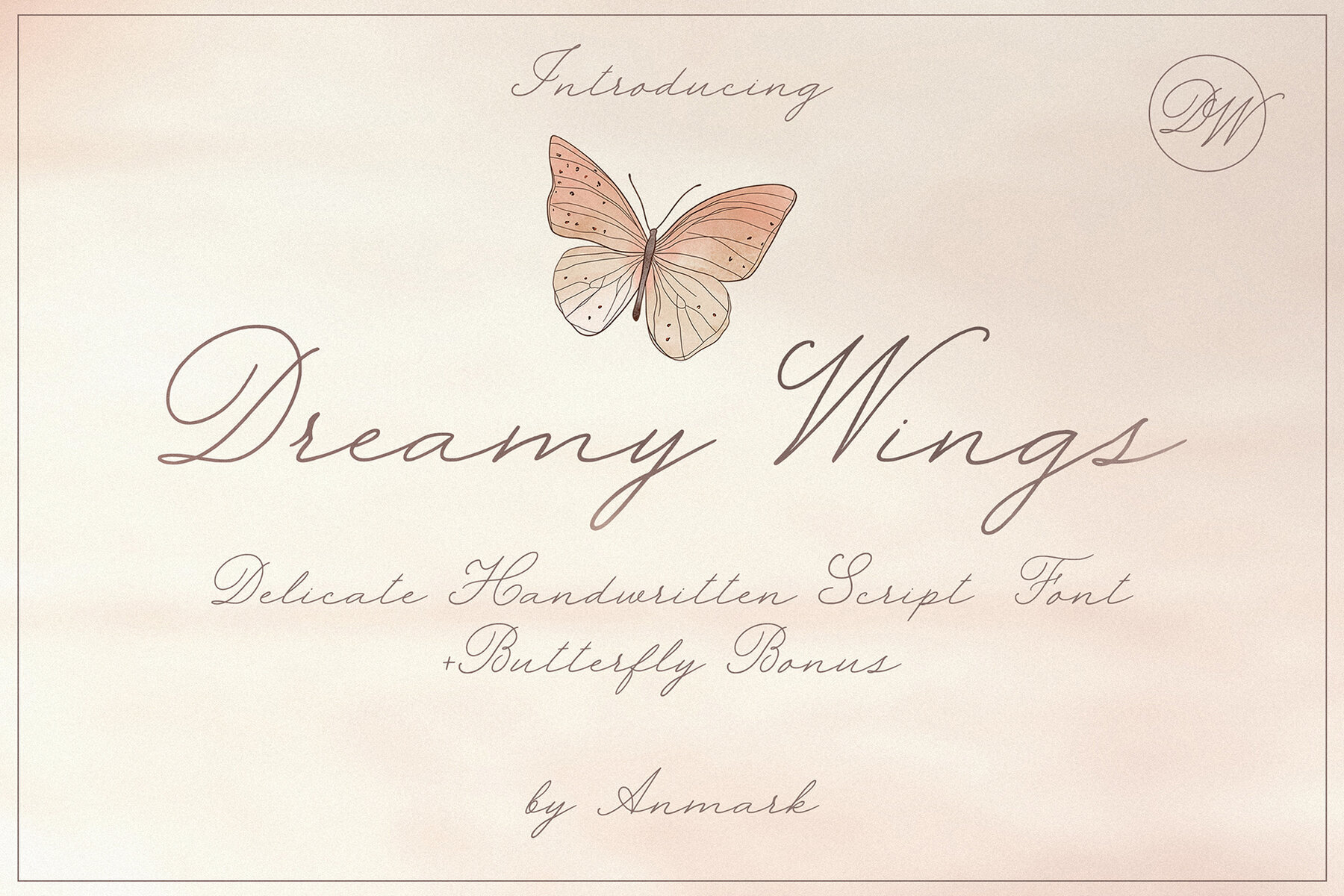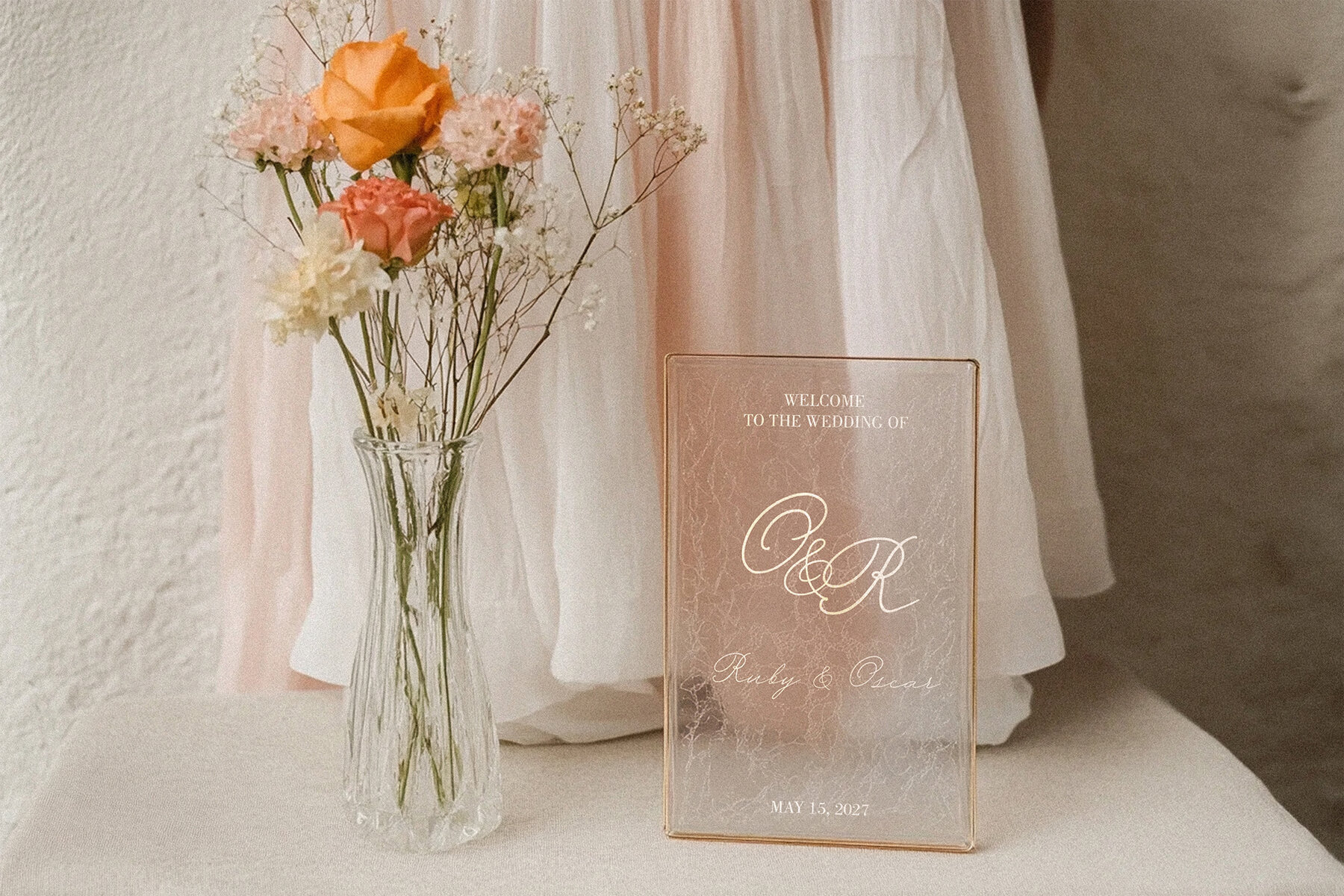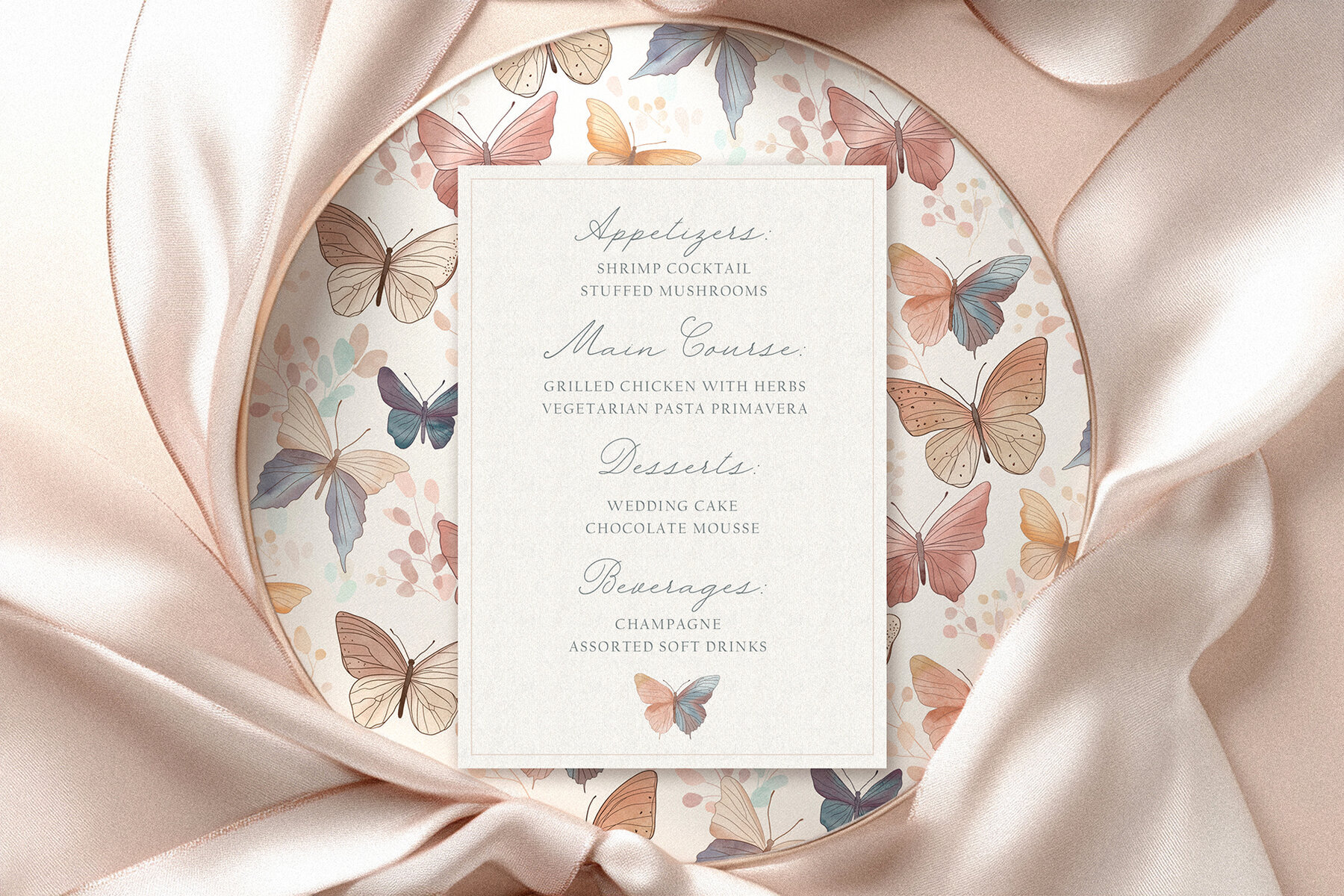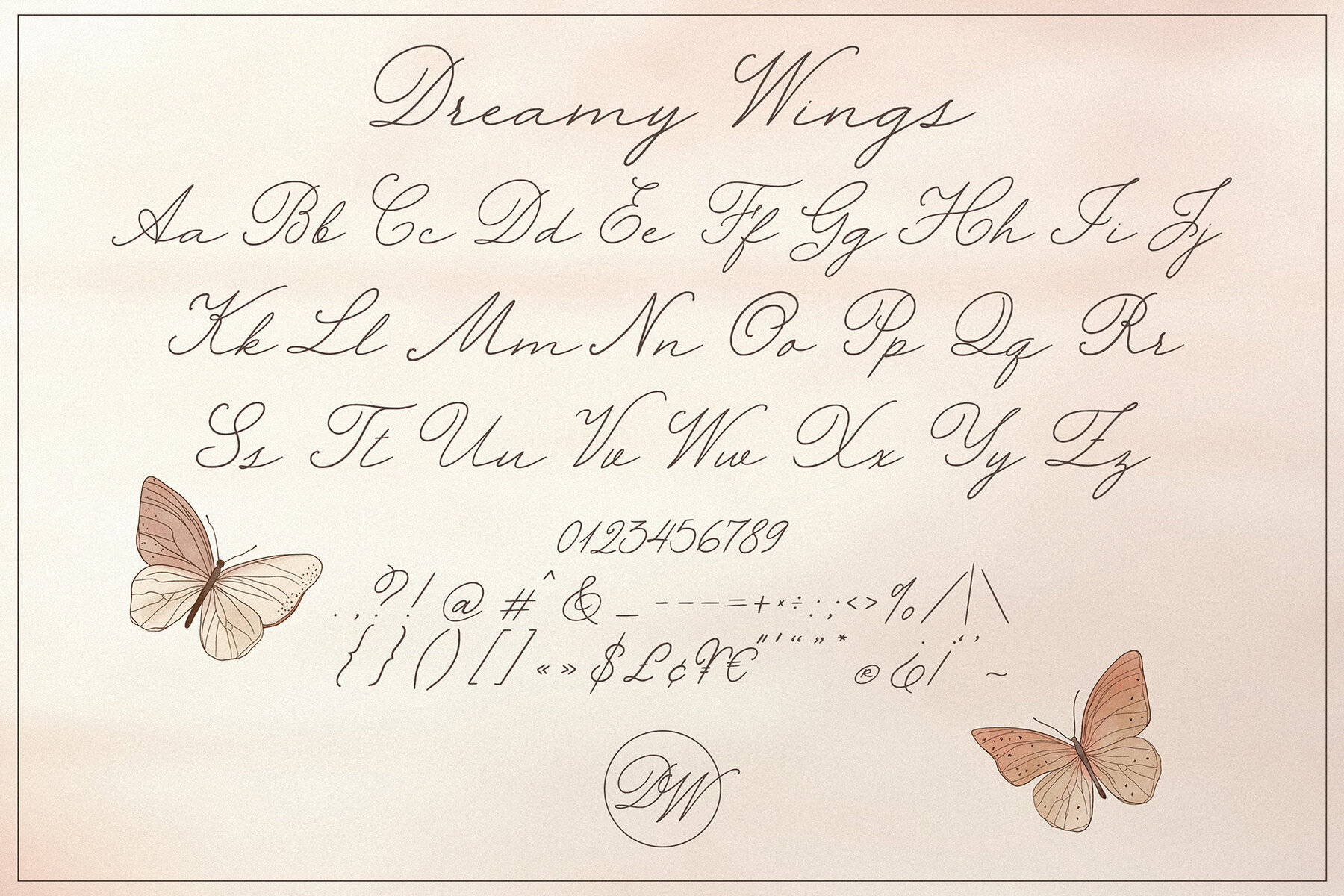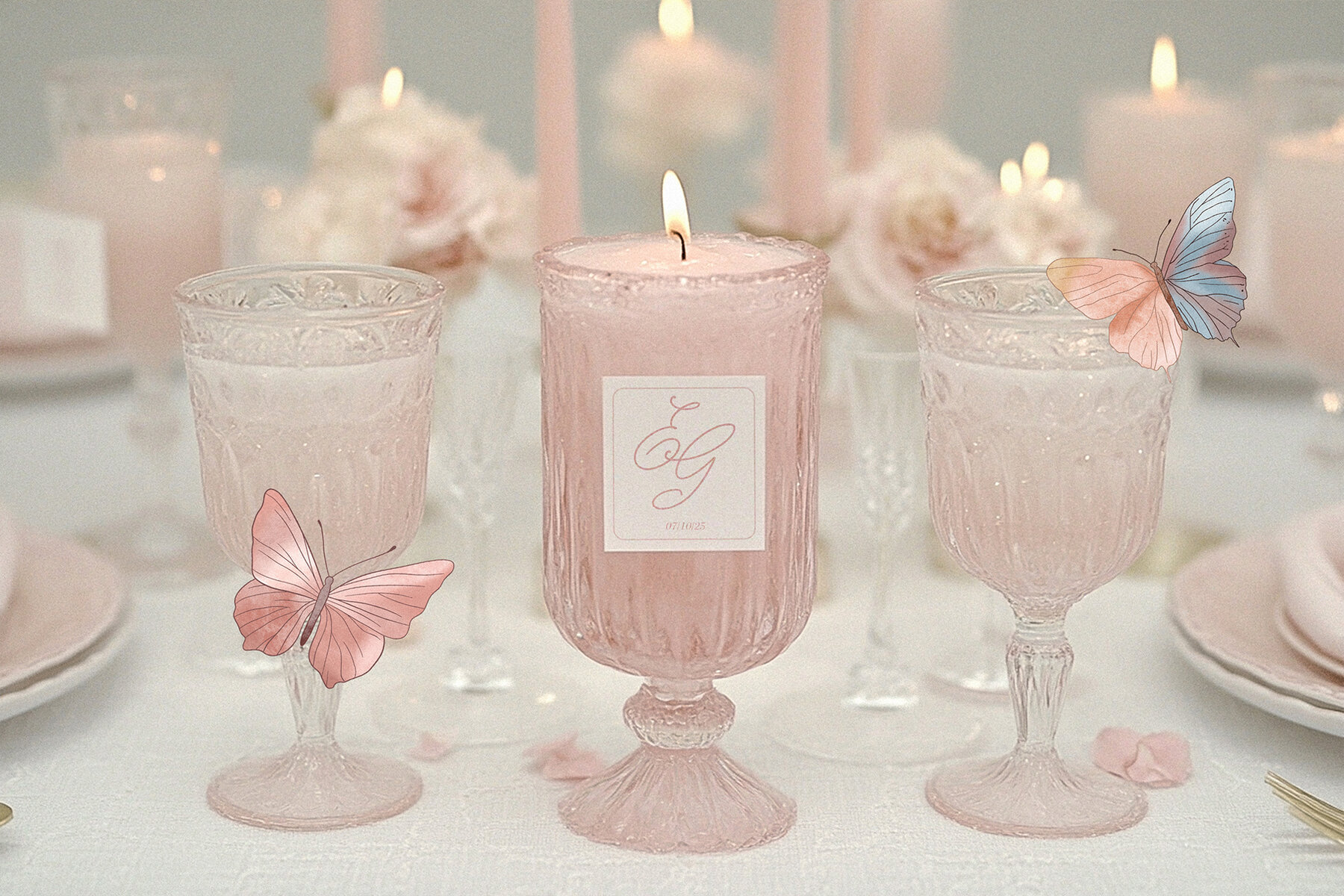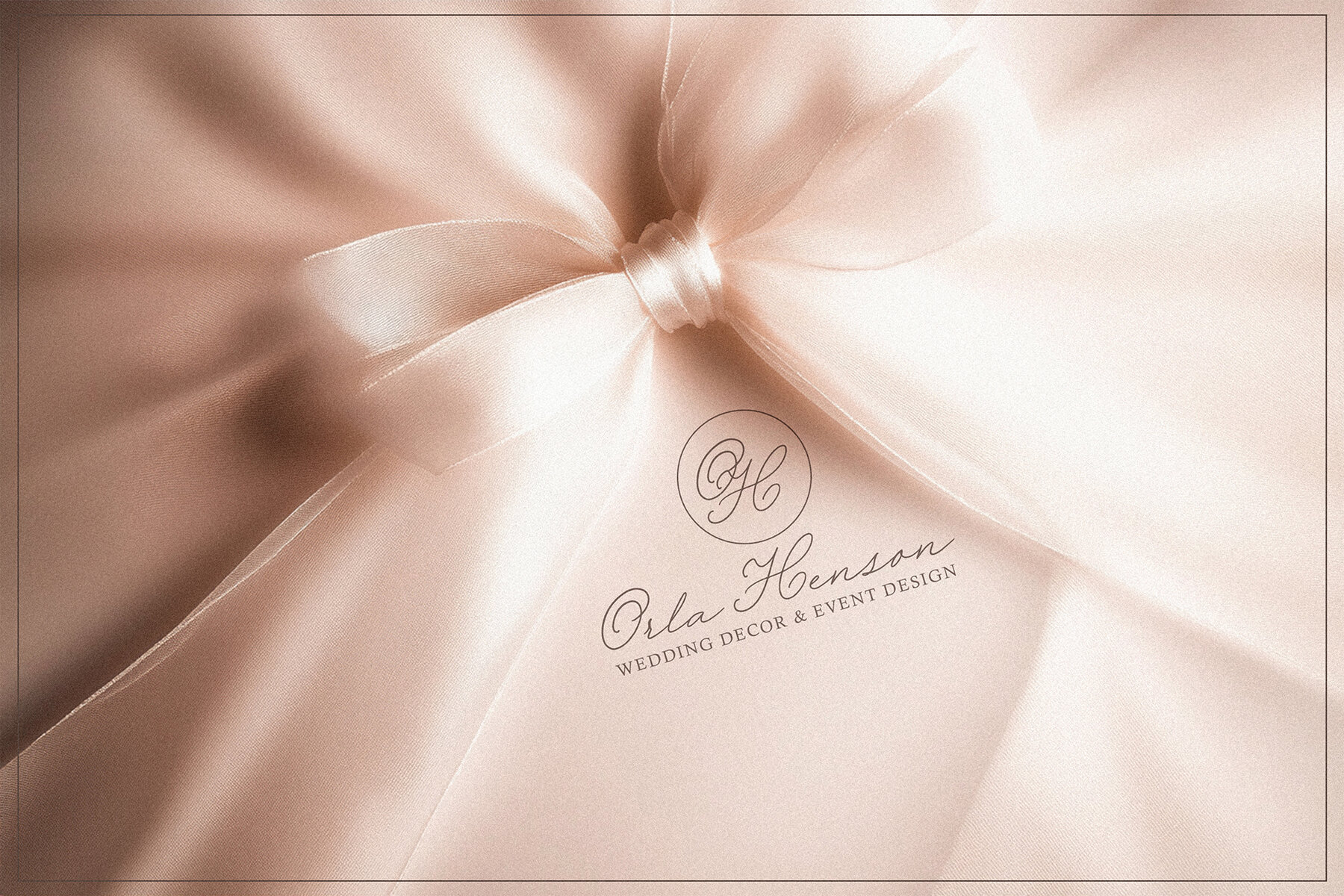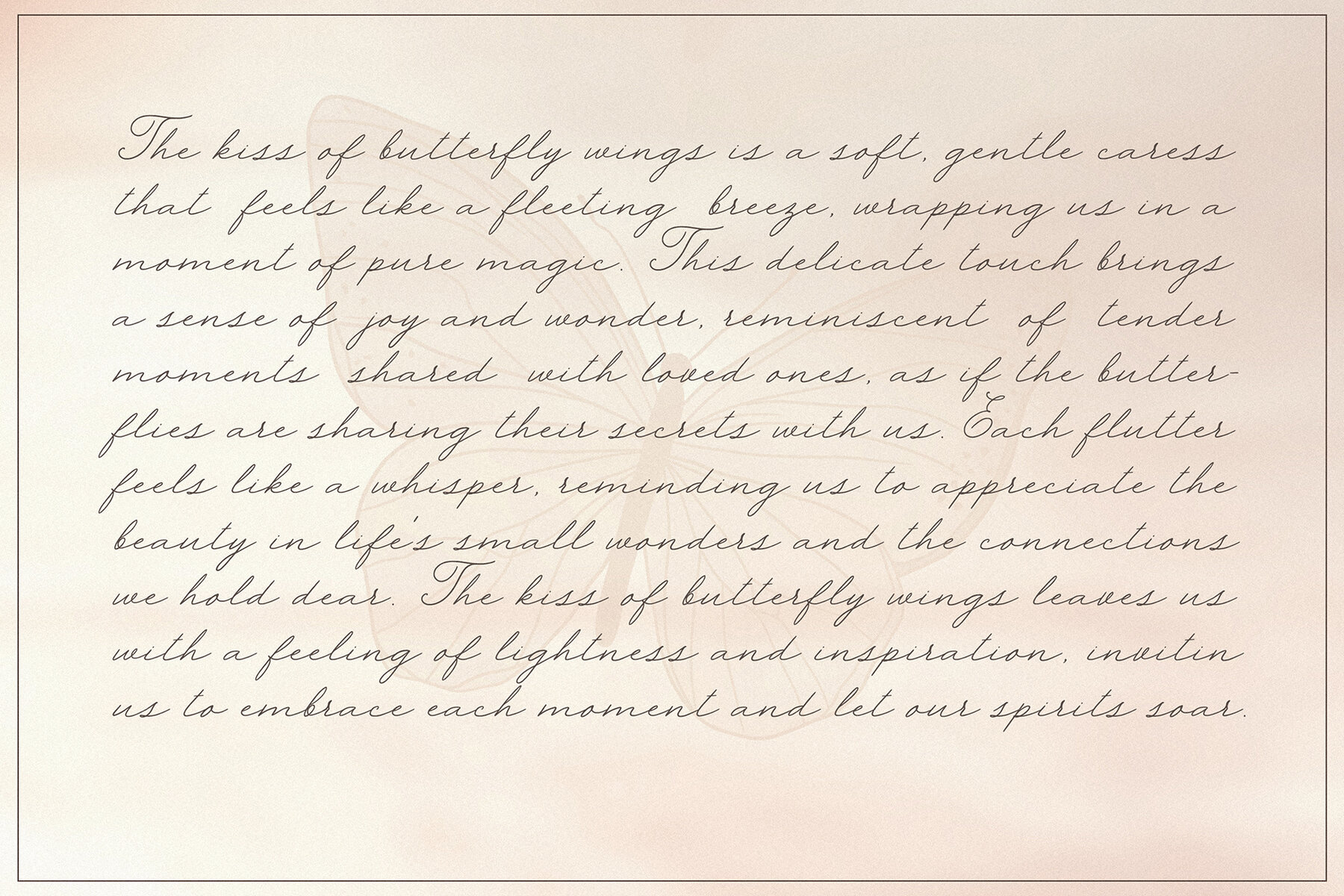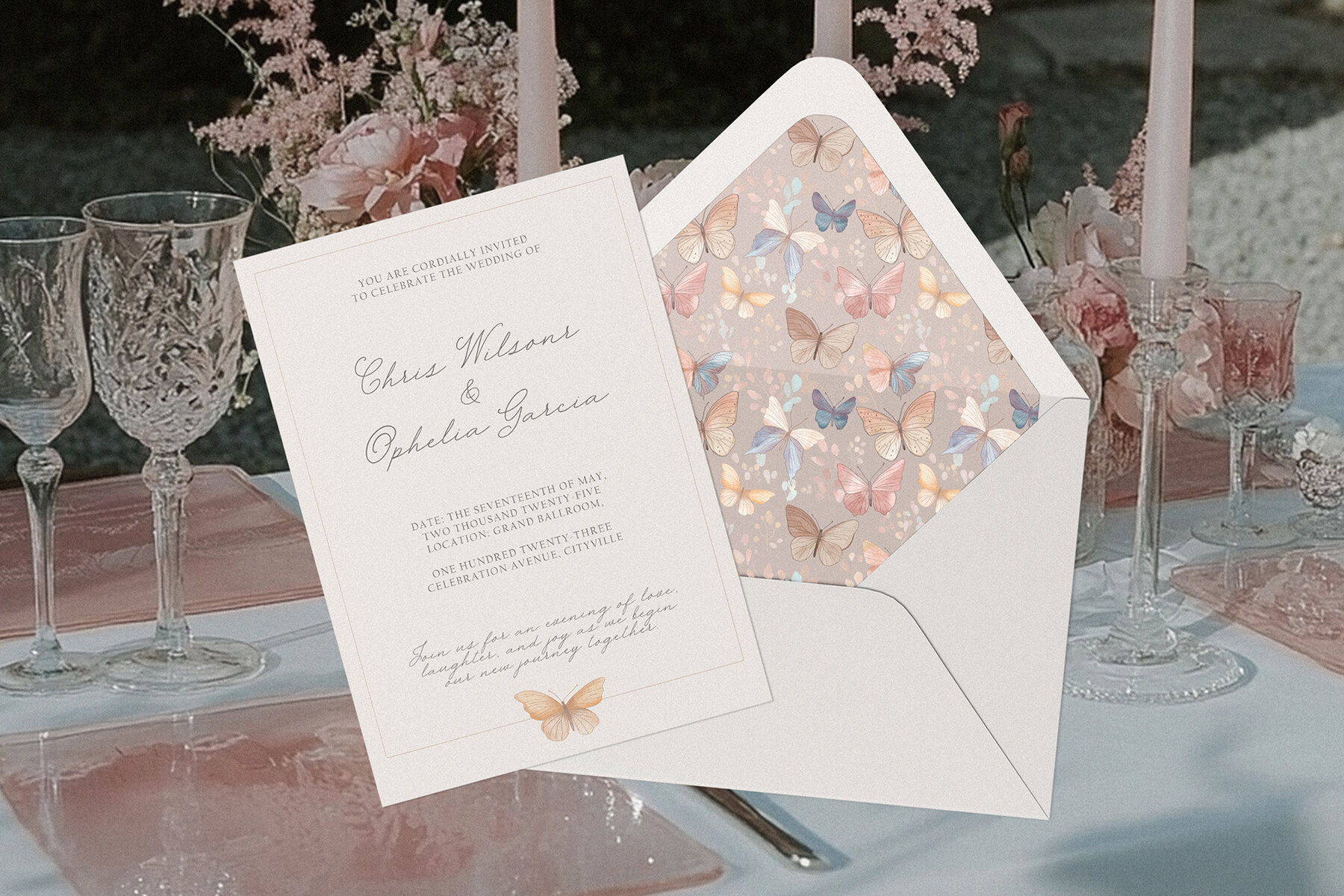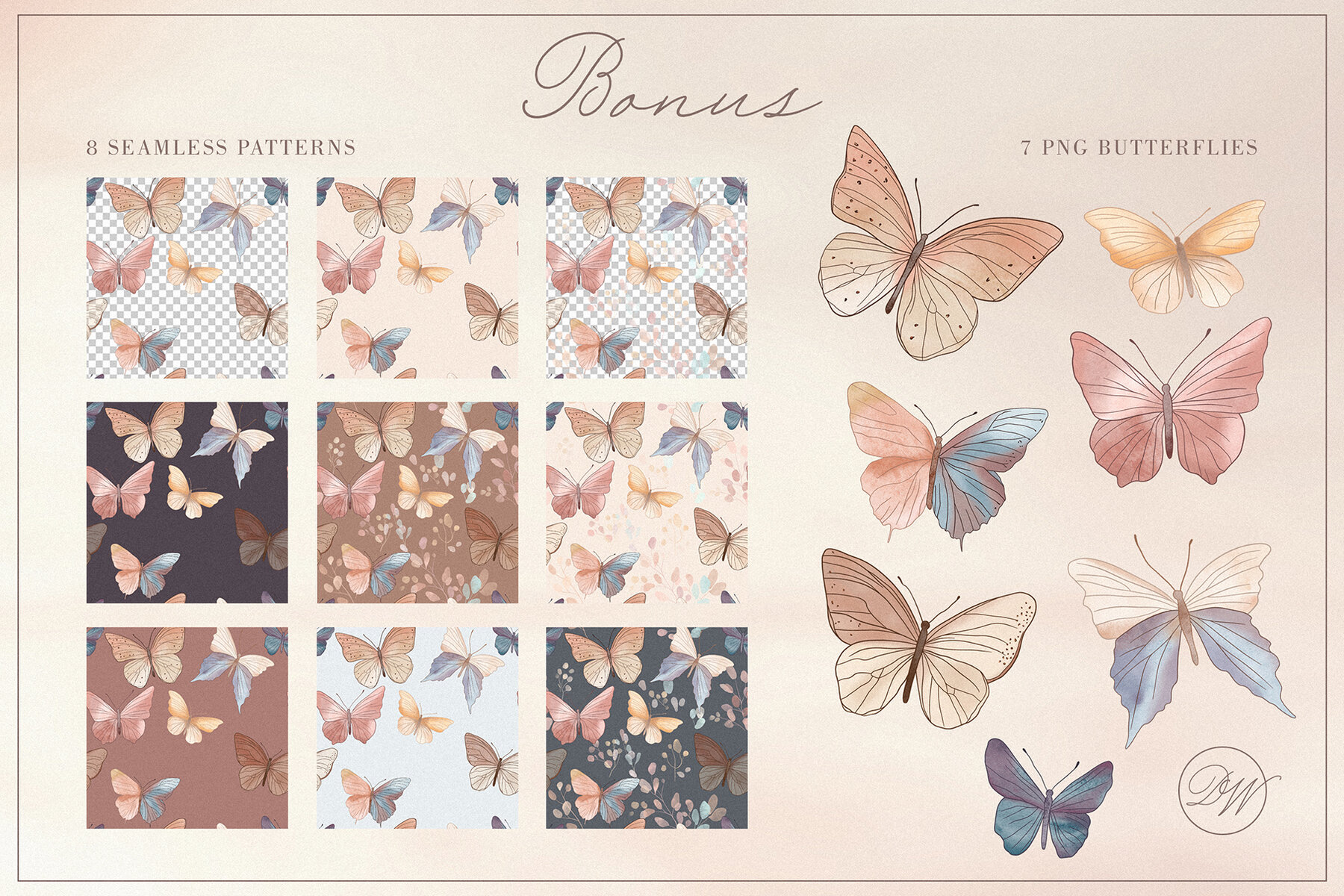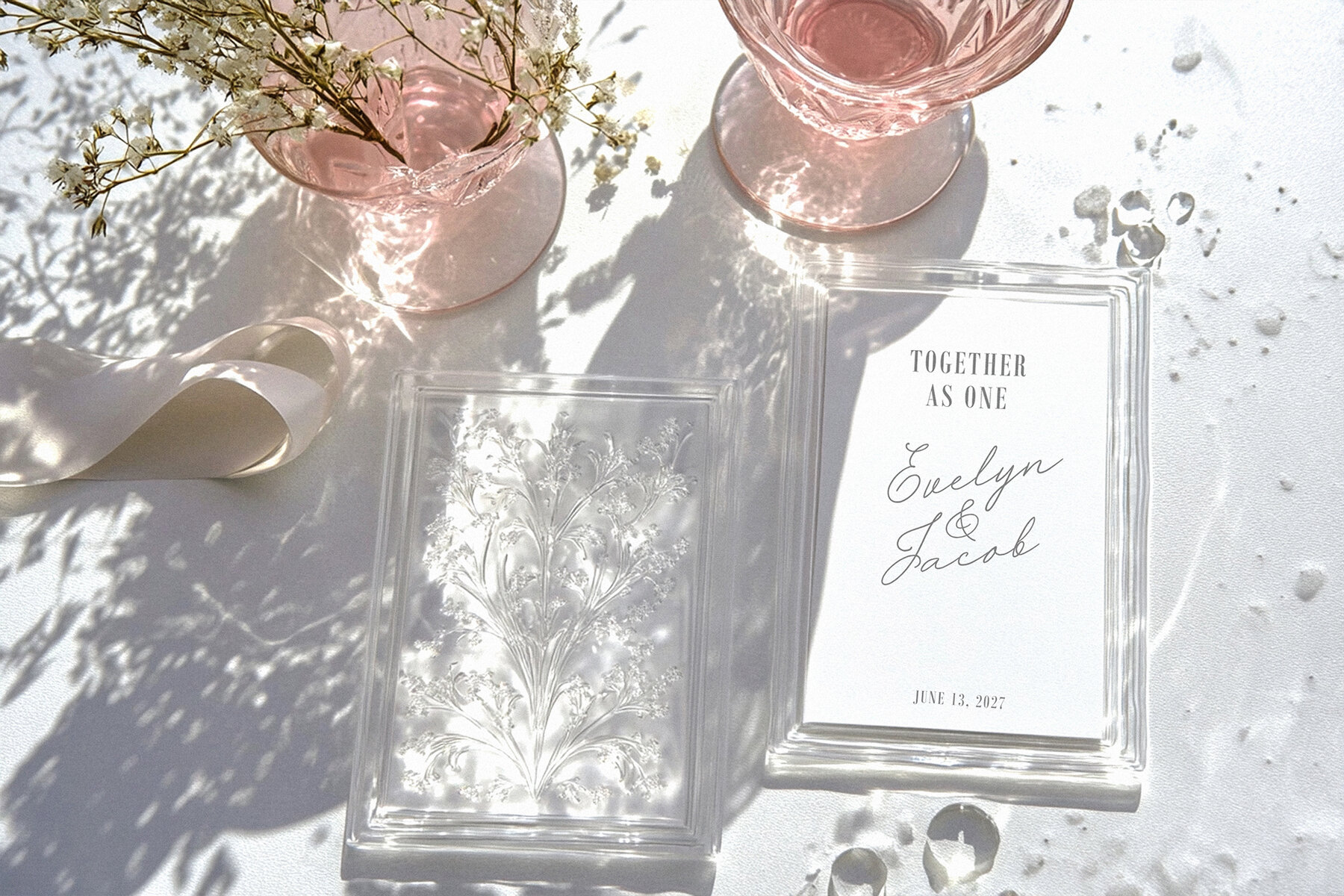
Dreamy Wings Font
Dreamy Wings is a delicate handwritten script font that brings a vintage charm to your designs. Perfectly suited for elegant wedding invitations, monograms, and bespoke logos, this typeface features flowing lines and graceful curves, adding a romantic flair to any project. Whether you're designing branding materials or social media graphics, Dreamy Wings offers a whimsical and sophisticated touch to enhance your creative works.
This typeface supports a broad spectrum of languages, including Spanish, German, French, Italian, Portuguese, Swedish, Norwegian, Danish, Finnish, and more. The font comes with a set of characters that include accents and special characters for the necessary linguistic versatility.
In addition to the font, enjoy a creative bonus of 7 PNG butterflies on transparent backgrounds and 9 seamless patterns. These extras provide even more options for designing unique graphics for packaging, greeting cards, and other creative endeavors. Experience the charm and versatility of Dreamy Wings in bringing your design ideas to life.